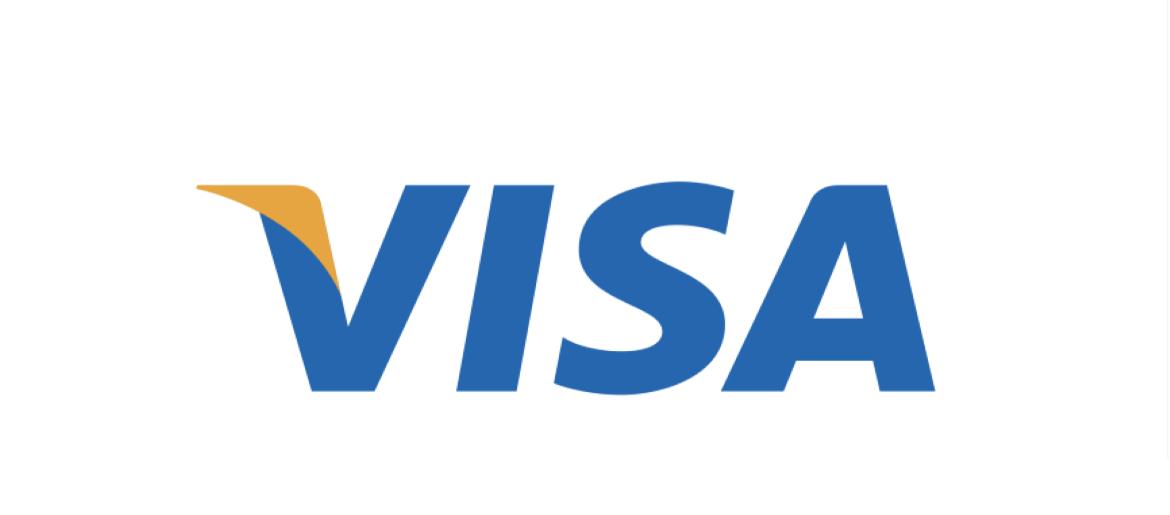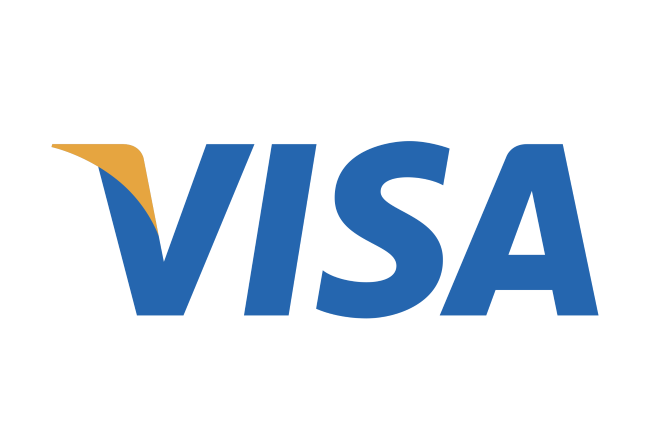
VISA Font is a key part of the brand’s identity, reflecting security, reliability, and global recognition in financial services. The VISA logo font is instantly recognizable, appearing on credit cards, digital platforms, and marketing materials worldwide.
The VISA logo font is based on a customized  typeface that emphasizes clarity, strength, and modernity. Its bold and clean design ensures maximum readability, whether on small cards or large advertisements. The VISA logo font reinforces the company’s reputation as a trusted leader in payment processing.
VISA Font
Consistent use of VISA Font strengthens the brand’s identity globally, making it synonymous with secure and convenient financial transactions.